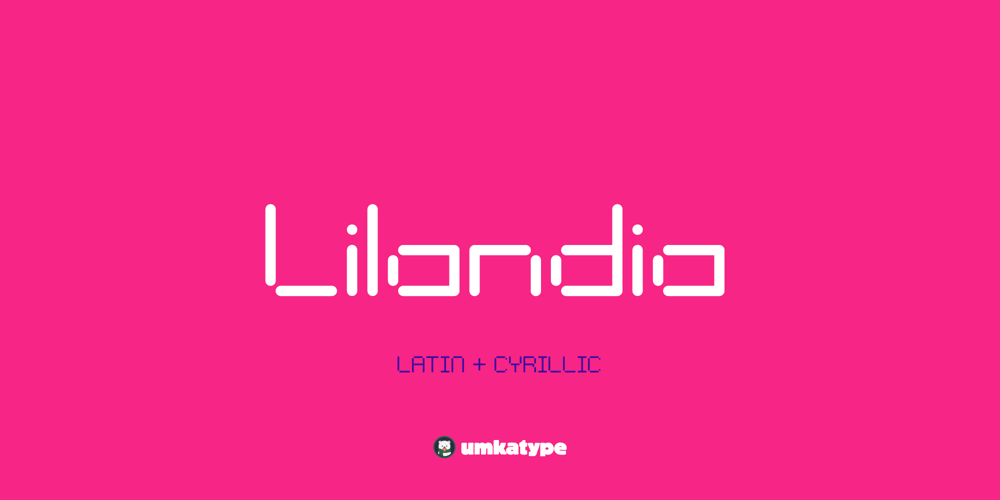
Lilandia Font Family was designed by Alper Çakıcı and published by Umka Type. Lilandia contains 1 styles and family package options. Introducing Lilandia: The Modern, Versatile Font for Seamless Multilingual CommunicationLilandia is more than just a font; it’s a statement of modern design and functionality. This versatile typeface is meticulously crafted with excellent kerning, ensuring a smooth reading experience both in digital formats and in print. Its standout feature lies in its full support for the Cyrillic language, opening doors to seamless multilingual communication across various platforms.What sets Lilandia apart is its unique design philosophy, blending classic proportions with a contemporary twist. This fusion results in a font that not only catches the eye but also delivers a message of sophistication and innovation. Whether you’re designing a website, crafting marketing materials, or working on editorial content, Lilandia’s adaptability shines through, making it a go-to choice for designers and creators.But that’s not all—Lilandia isn’t limited by borders or languages. With support for a whopping 66 languages including Russian, Afrikaans, Albanian, Basque, Catalan, Danish, Dutch, English, Filipino, French, German, Indonesian, Italian, Portuguese, Spanish, Swedish, Turkish, and many more, this font ensures that your message reaches a global audience without any linguistic barriers.In essence, Lilandia is not just a font; it’s a bridge that connects cultures, ideas, and creativity. Experience the power of seamless communication with Lilandia—your gateway to a world of design possibilities.